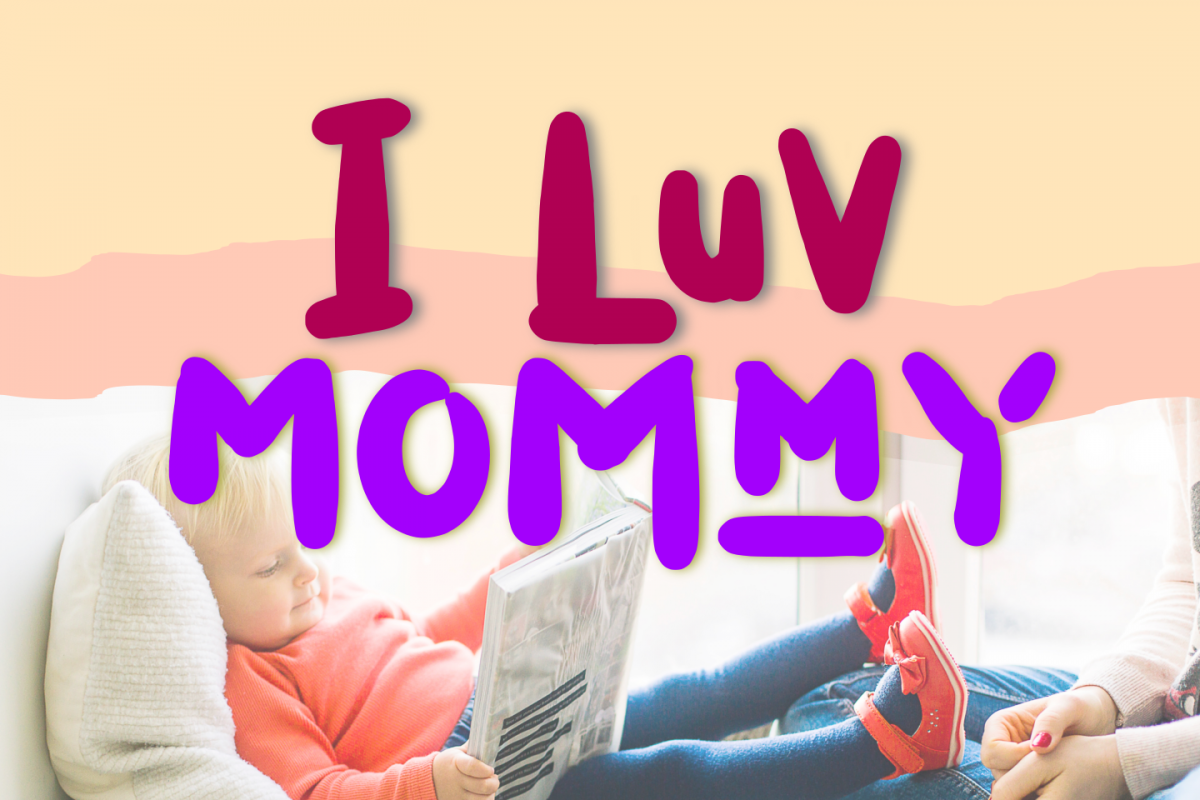
I Luv Mommy Playful font
I luv Mommy is a cute playful font. just play with its combination and you will found the fun. contain three alternate for each glyph.